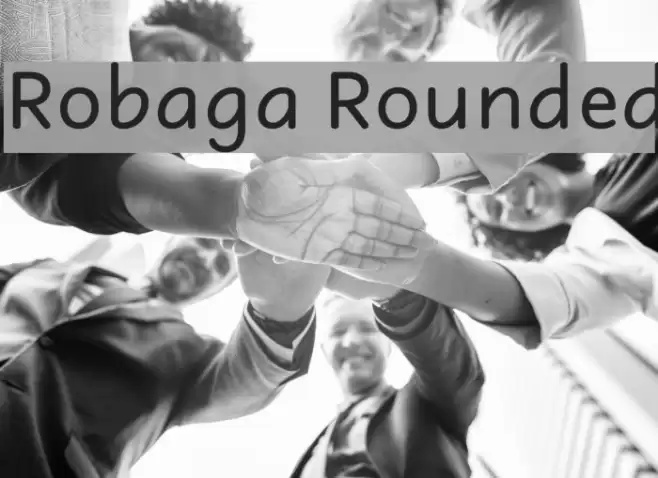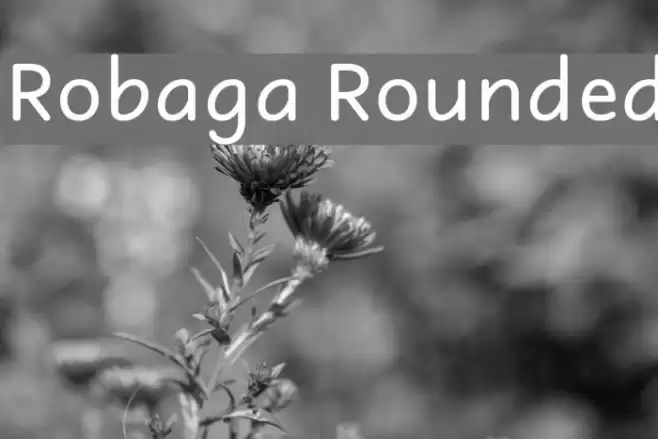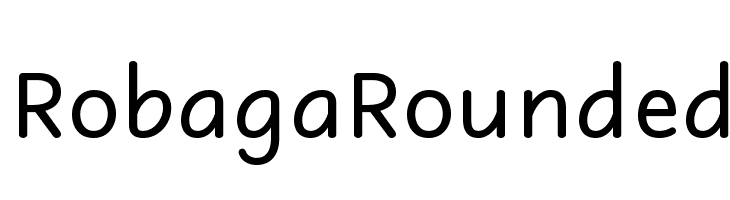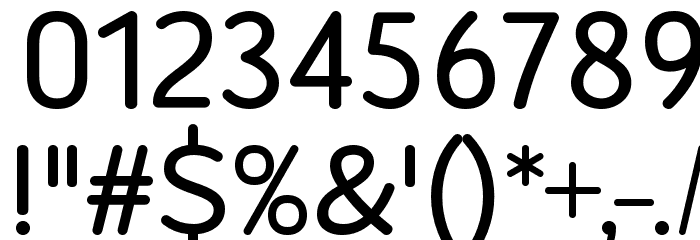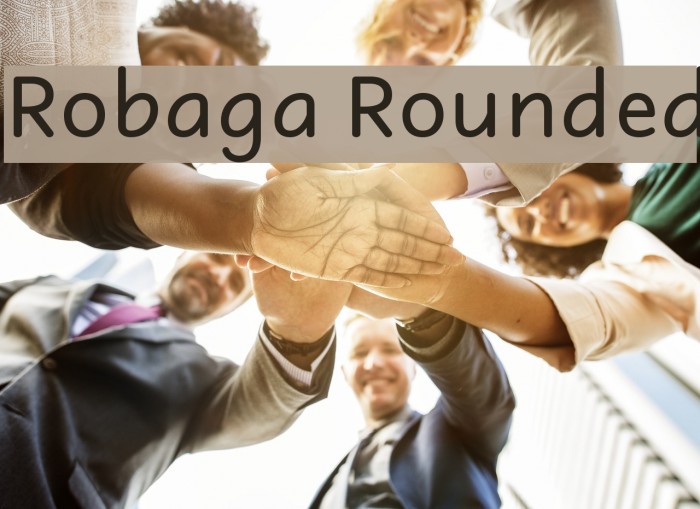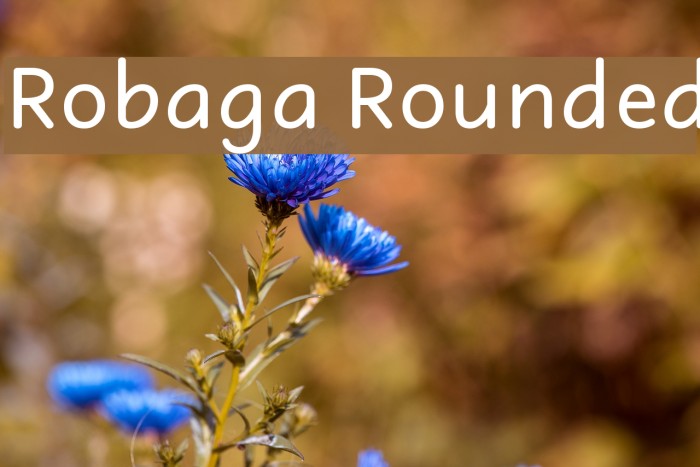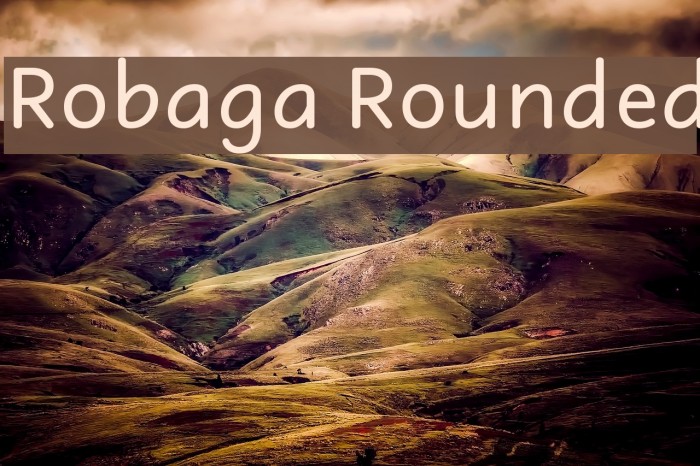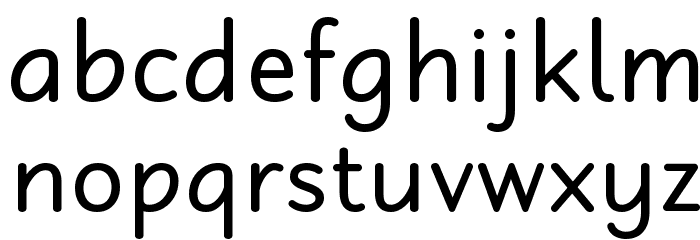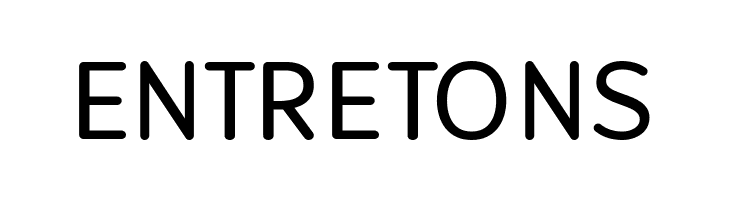
Robaga Rounded Font
Robaga Rounded Description
This font features a clean, rounded sans-serif style that emphasizes simplicity and readability. The characters are evenly spaced with smooth curves, giving a friendly and approachable appearance. The uppercase and lowercase letters maintain a consistent weight, contributing to a harmonious look. The numerals and special characters are designed to match the overall aesthetic, ensuring uniformity across different text elements. This font is versatile, suitable for both digital and print media, and can be used in various design contexts where clarity and modernity are desired.
A clean, rounded sans-serif font with smooth curves and consistent weight from Uncategorized fonts.
- Proposed Projects: Ideal for branding, web design, user interfaces, signage, and educational materials.